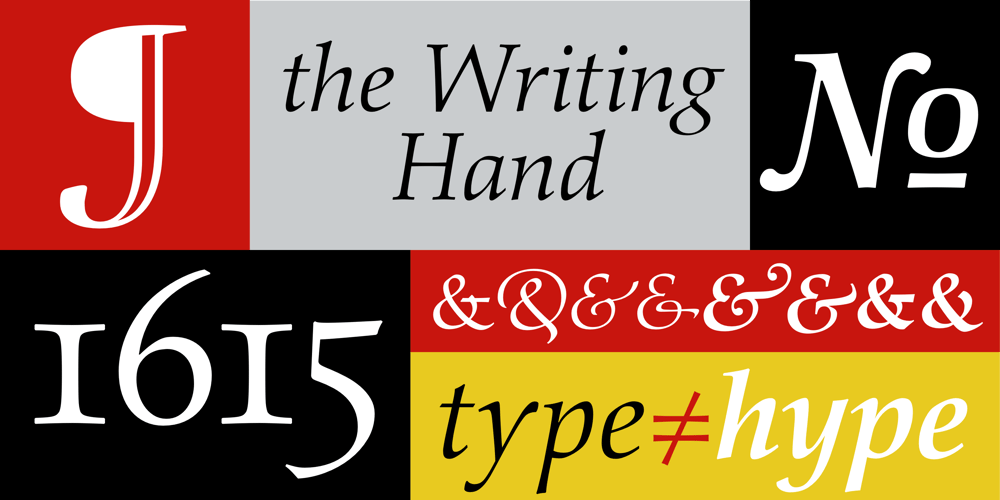
Aldus Nova Font Family was designed by Hermann Zapf, Akira Kobayashi and published by Linotype. Aldus Nova contains 4 styles and family package options. Hermann Zapf and Akira Kobayashi redeveloped Palatino for the 21st Century, creating Palatino nova. The Palatino nova family also includes revised versions of Aldus (now called Aldus nova). A bold weight is added into the font family. The character set support is similar to Palatino nova, but Greek and Cyrillic are not available in book weight fonts.